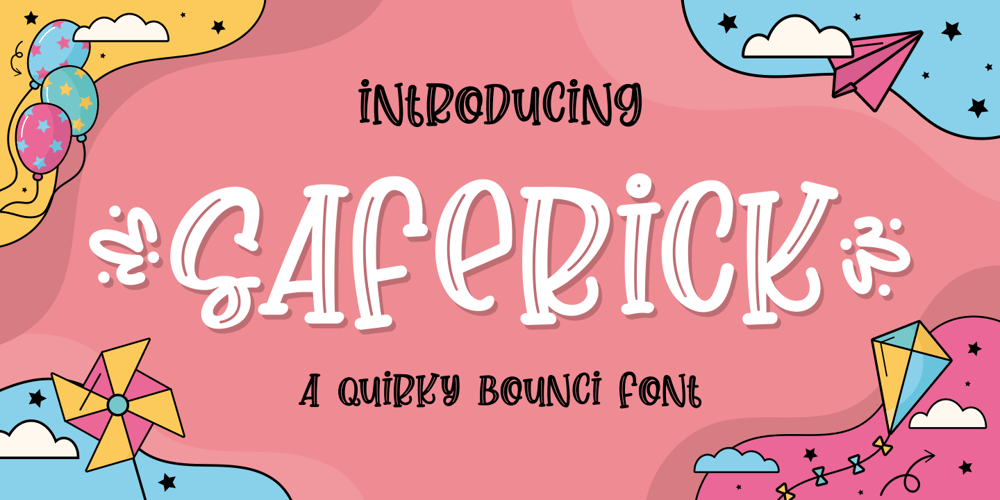
Saferick
Saferick font
Saferick Font Family was designed by Riyadh Abuhafs and published by Awan Senja. Saferick contains 1 styles and family package options. Saferick is a quirky and great display font. It’s perfect for logos, stationery, branding, packaging and it will add a cheerful touch to your designs.